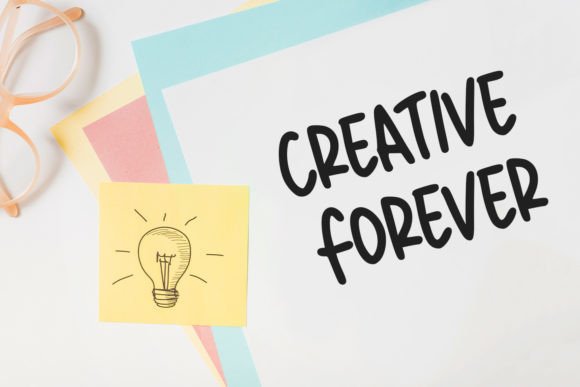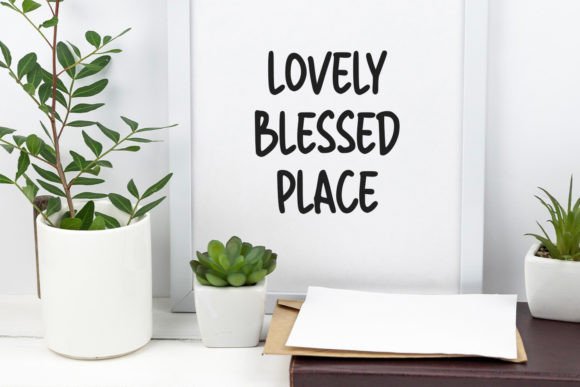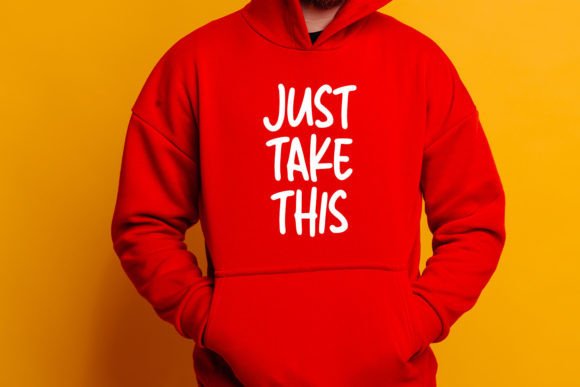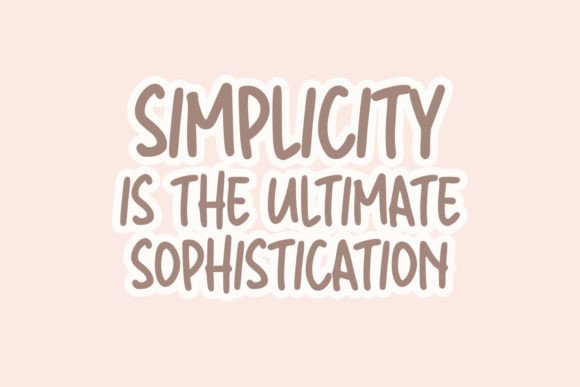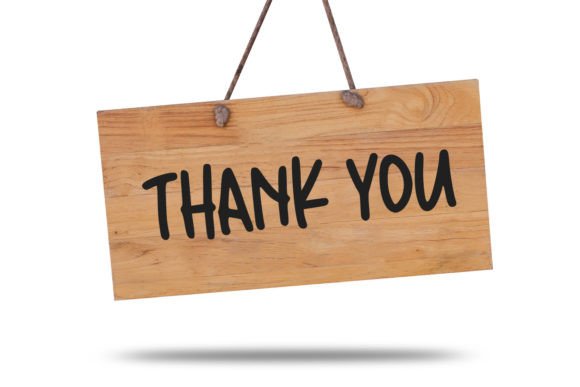
Introduction to Homecake Font
Do you remember that moment when you stumbled upon the perfect font for your creative project? The one that made your design pop and left you feeling like you’re on top of the world? For many designers, that moment is what drives them to keep pushing the boundaries of their craft.
And that’s exactly what we’re here to talk about today – the Homecake Font. This sweet and friendly handwritten font has been making waves in the design community, and for good reason. Its natural and unique style makes it incredibly versatile, allowing designers to tap into their creativity and bring their ideas to life in high-quality designs.
Key Features of Homecake Font
- High-quality design resource with a unique, creative touch suitable for various projects.
- Features a transparent background, allowing for seamless integration with different design elements.
- Designed with a specific resolution in mind, making it ideal for digital and print-based creative projects.
- Available in multiple sizes, ranging from 100 to 1000 points, to cater to different design requirements.
- Unique characteristics include intricate details and a playful, yet elegant feel, making it perfect for adding a touch of whimsy to any design project.
Honest Review: Homecake Font
I recently stumbled upon the Homecake Font, a free design resource that caught my attention. In this review, I’ll share my honest thoughts on what works well and what could be improved.
- High-quality design: The Homecake Font has a modern, elegant feel to it, making it perfect for creative projects that require a touch of sophistication.
- Transparent background: This feature allows for seamless integration into various design elements, giving you more flexibility in your design process.
- Limited font styles: While the Homecake Font is beautifully designed, it’s available in a limited number of styles, which may not cater to every designer’s needs.
- No extensive character set: The font lacks an extensive character set, which may limit its use in certain design projects that require special characters or symbols.
Overall, the Homecake Font is a great addition to any designer’s toolkit. While it has its limitations, its high-quality design, transparent background, and free download make it an excellent resource for creative projects. With a little creativity, you can work around its limitations and make the most out of this fantastic design resource.
The Homecake Font is a versatile design resource that can be used in various creative projects, such as logos, business cards, and social media graphics. Its high quality and unique design make it an ideal choice for designers looking for a free download font with a transparent background.
Getting the Most Out of Homecake Font
To get the most out of Homecake Font, use it in combination with other design elements, such as graphics and images, to create a visually appealing design. Experiment with different font sizes and styles to achieve the desired high quality look.